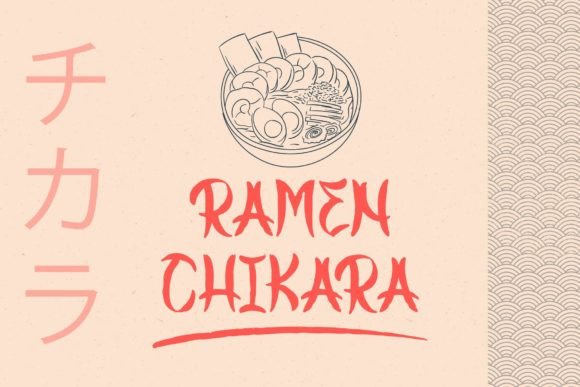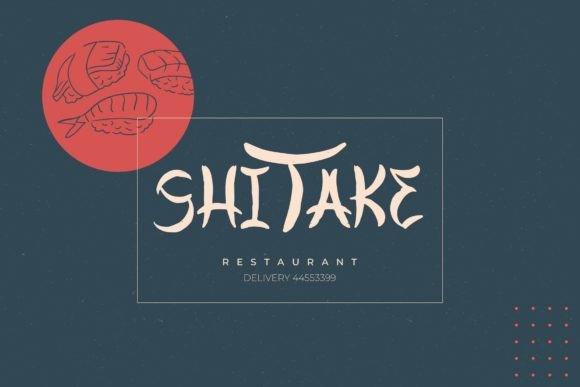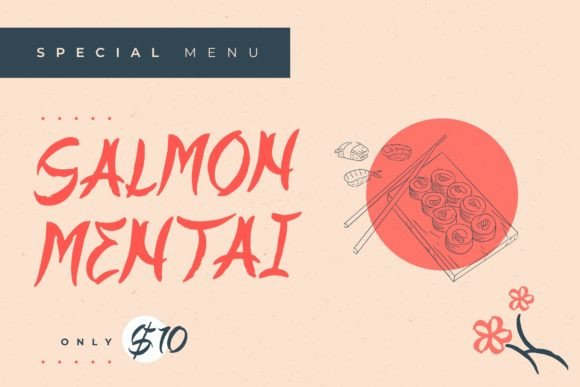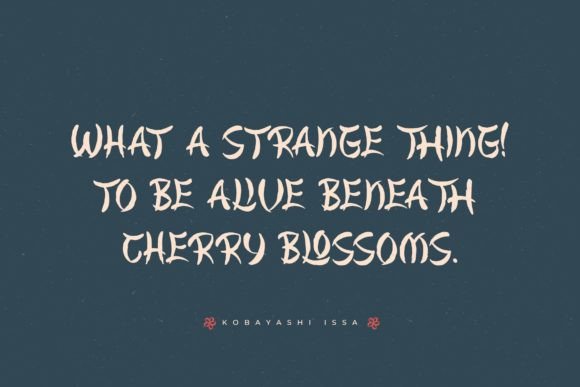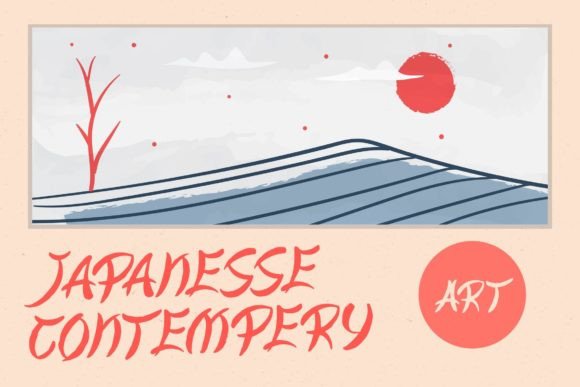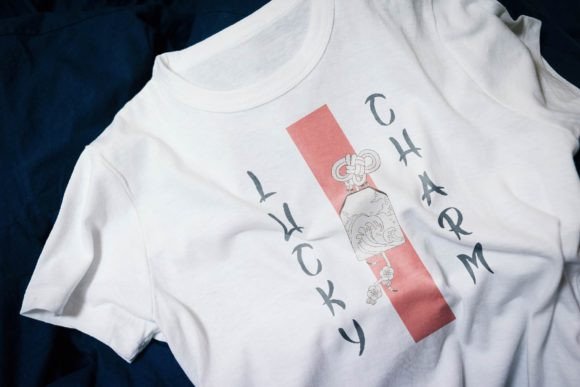
The Blossom Sakura Font: A Delicate Touch for Your Creative Projects
I’ll never forget the time I was working on a branding project for a Japanese-inspired tea company. I was struggling to find the perfect font that would capture the essence of traditional Japan, with its delicate cherry blossoms and serene landscapes. That’s when I stumbled upon the Blossom Sakura font, a beautiful Japanese brush font that instantly transported me to the tranquil world of sakura season. In this article, I’ll share my experience with this lovely font, its features, and how to make the most of it in your creative projects.
An Honest Review of Blossom Sakura Font
What I Love About Blossom Sakura ✨
• 💫 Elegant and delicate brush strokes that evoke a sense of traditional Japanese art
• ✅ Extensive language support, including Japanese, English, and other languages
• 🎨 Highly versatile and suitable for a wide range of creative projects, from logos to greeting cards
• 📚 OpenType features, including glyphs and stylistic alternates, for added creativity
• ⚠️ Some characters may require manual kerning for optimal spacing
• ⚠️ Limited support for non-Asian languages, so double-check compatibility before use
The Designer Inspiration Behind Blossom Sakura
Blossom Sakura was inspired by the fleeting beauty of Japan’s famous cherry blossom season. The font’s creator, a Japanese designer, sought to capture the essence of this iconic natural phenomenon in a digital font. With its delicate brush strokes and elegant lines, Blossom Sakura brings a touch of traditional Japan to your creative projects.
What is the Blossom Sakura font suitable for? The Blossom Sakura font is suitable for a wide range of creative projects, including logos, branding projects, homeware designs, product packaging, mugs, quotes, posters, shopping bags, t-shirts, book covers, name cards, invitation cards, greeting cards, labels, photography, watermarks, and special events.
Is Blossom Sakura a handwritten font? No, Blossom Sakura is a Japanese brush font, created to mimic the look of traditional Japanese brush calligraphy.